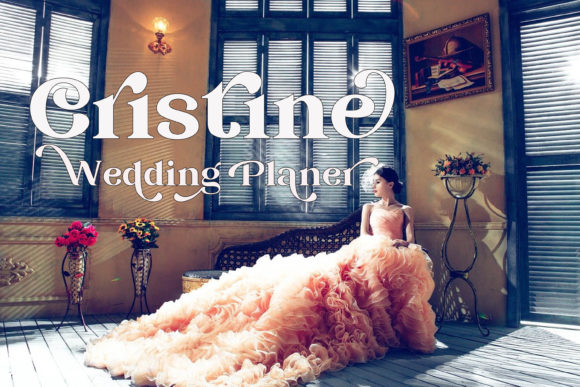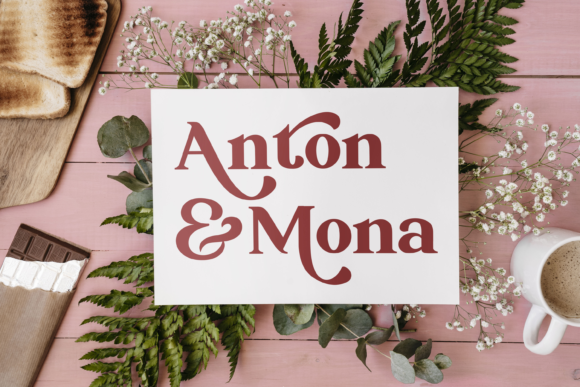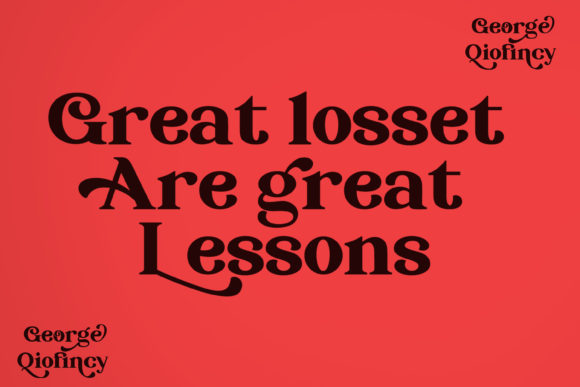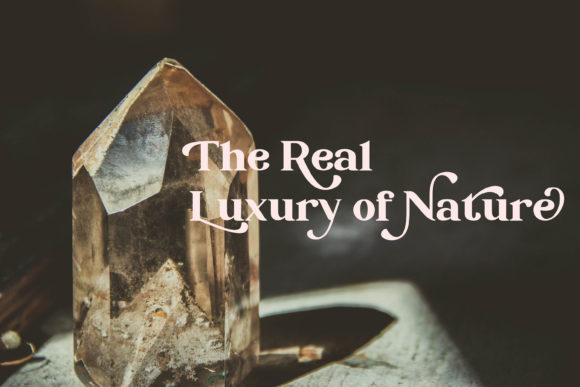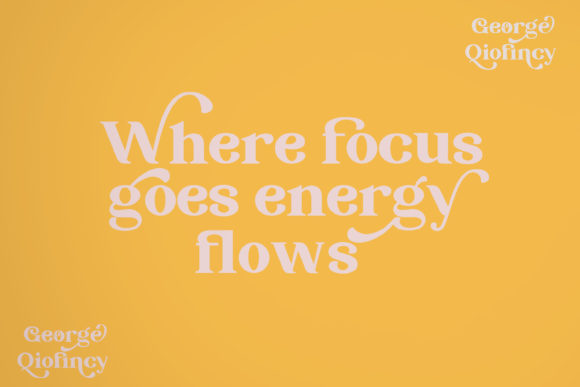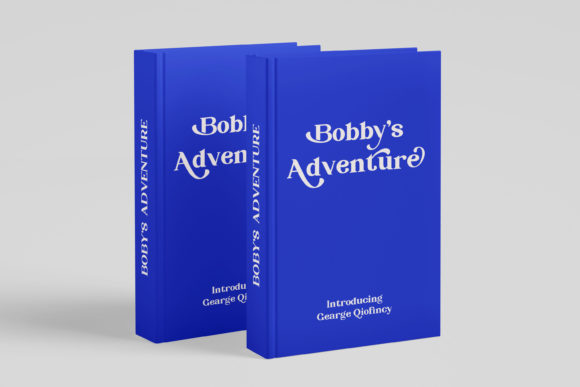
Introduction to George Qiofincy Font
George Qiofincy is a distinct and elegant serif font that blends traditional influences into a contemporary aesthetic.
It will complement any design need perfectly with its perfectly balanced mix of the smooth and sharp .
Key Features of George Qiofincy Font
Why Choose George Qiofincy Font?
George Qiofincy Font offers exceptional quality and versatility, making it a valuable addition to your design toolkit. Whether you’re creating for personal projects or commercial use, George Qiofincy Font delivers professional results.